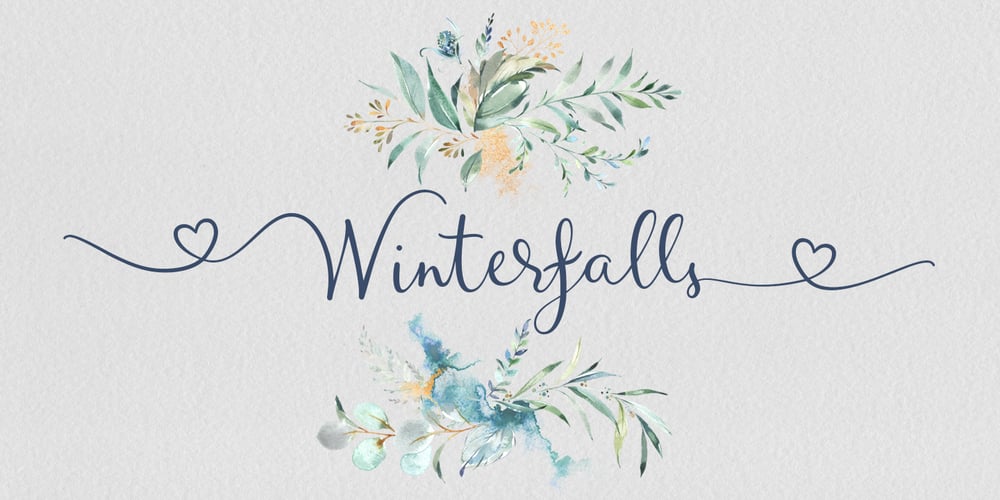
Winterfalls Font Family was designed by Joanne Hewitt and published by Joanne Marie. Winterfalls contains 1 styles and family package options. I always like to make a heart swash font and this is my 7th. Winterfalls is a high quality, smooth, simple script font which is easy to read and ideal for anything romantic and loving. Use it on cards and notes for baby announcements, wedding stationery, birthday and thank you cards but most of all, anything for your Valentine.Winterfalls includes left and right end swashes and connecting swashes on the lowercase letters, and a set of alternate uppercase letters with heart swashes. There are a few alternate lowercase letters, such as the ‘i’ and the ‘j’ dotted with a cute little heart and many, many ligatures. As usual, this font also comes with a good set of international characters, which will come in handy when you want you entice your valentine with a little french, haha.If you use a program which doesn’t have a glyphs panel then it’s super easy to copy and paste the alternates and ligatures from Font Book (Mac) or Character Map (Windows).